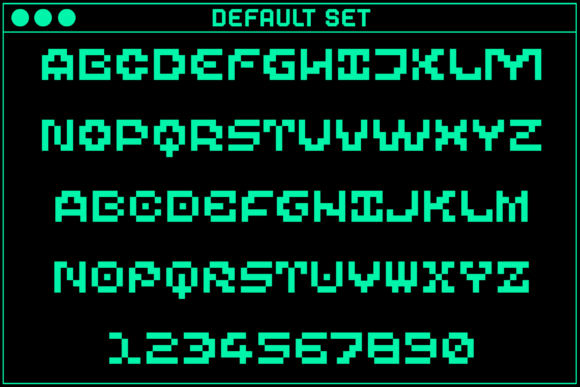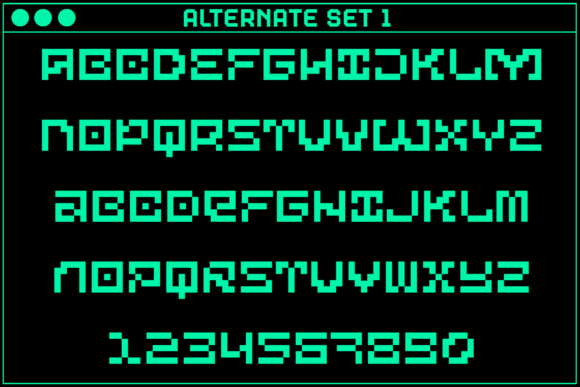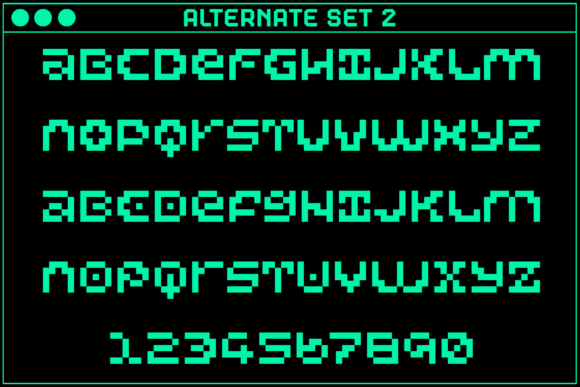
Getting Creative with Gamer Cryptic Font
Have you ever been stuck on a design project, desperately searching for the perfect font to bring your vision to life? I know I have. There’s nothing quite like the thrill of discovering that elusive font that elevates your design from good to great. For me, that moment came when I stumbled upon the Gamer Cryptic Font. Its unique, pixelated design added a touch of edginess to my project that I just couldn’t get enough of.
As a designer, you know how valuable a versatile font can be. That’s why I’m excited to share this hidden gem with you. The Gamer Cryptic Font is a game-changer (pun intended) for any creative project that requires a bold, eye-catching display font. With its PUA encoding, you can access all the glyphs and swashes you need to create stunning designs with ease.
Key Features of Gamer Cryptic Font
- Unique, cryptic design inspired by gaming culture, perfect for creative projects and design resources.
- High-quality font with transparent background, ideal for use on various backgrounds and designs.
- Designed to be easily readable and versatile, making it suitable for a wide range of design applications, from logos to typography.
- Perfect for gamers, designers, and anyone looking to add a touch of gaming culture to their creative projects.
Honest Review: Gamer Cryptic Font
I recently had the chance to try out the Gamer Cryptic Font and I’m excited to share my thoughts on this design resource. As a designer, I’m always on the lookout for high-quality fonts that can elevate my creative projects.
What works well with the Gamer Cryptic Font is its unique, cryptic style that’s perfect for gaming and tech-related designs. The font is available for free download, making it a great option for designers on a budget. I also appreciate the transparent background, which makes it easy to customize and integrate into any design.
- ✨ Unique and cryptic style perfect for gaming and tech-related designs
- ✨ Transparent background for easy customization
However, I do have to mention a few limitations ⚠️. The font may not be suitable for all types of designs, and it may not be as versatile as other fonts on the market. Additionally, the font’s unique style may not be to everyone’s taste.
Overall, I’m impressed with the Gamer Cryptic Font and would definitely recommend it to designers who are looking for a unique and high-quality design resource for their creative projects.
How to Use Gamer Cryptic Font
Using Gamer Cryptic Font in Design Software
The Gamer Cryptic Font can be used in a variety of design software, including:
– Use the font in your designs to add a touch of cryptic flair.
– Apply the font to your graphics and designs for a unique look.
– Use the font to add a creative touch to your presentations and documents.
To get the most out of the Gamer Cryptic Font, try the following:
- Use a transparent background to create a sense of depth.
- Experiment with different font sizes and colors to create a unique look.
The Gamer Cryptic Font is perfect for:
- Designing gaming-related graphics and materials.
- Creating unique and eye-catching presentations.
- Adding a touch of cryptic flair to your creative projects.
Alternatives to Gamer Cryptic Font
1. Funkyard Font
The Funkyard Font is a great alternative for designers working on creative projects that require a bold and edgy aesthetic. This high-quality font features a transparent background, making it perfect for designs that need a modern and sleek look. When to use: For designs that require a fun and energetic vibe, such as video game packaging or advertisements.
Compared to Gamer Cryptic Font, Funkyard Font has a more playful and experimental feel, making it ideal for designers who want to add a unique touch to their projects. It’s available for free download and can be used for both personal and commercial projects.